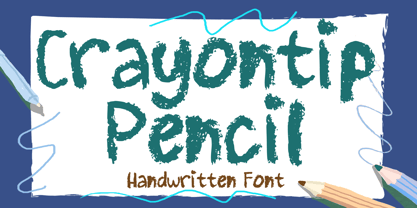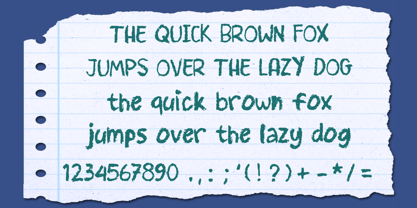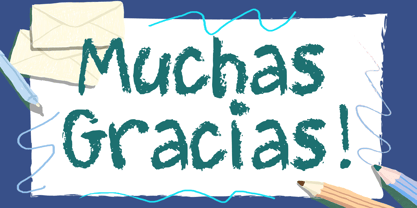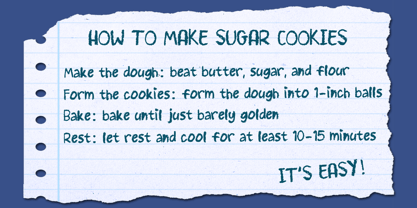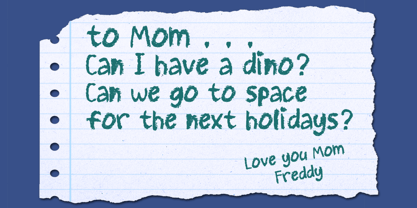
Crayontip Pencil
by Mvmet
The Crayontip Pencil Font Family was designed by Gabriel Valentinus and published by Mvmet. Crayontip Pencil contains 1 styles. More about this family
Introducing Crayontip Pencil, a playful yet versatile font that showcases the whimsical textures of pencil, crayon, and graphite. This font serves as your daily design companion, capable of elevating any project to new heights. It breathes life into a variety of design ventures, from enhancing stickers and t-shirts to creating memorable merchandise and striking logos. Not limited to flamboyant creations, it also excels in adorning magazine and book covers, enlivening comics and cartoon artwork, or adding a personal touch to your everyday typing tasks. With Crayontip Pencil, you can infuse a dash of cool and an extraordinary flair into your designs, ensuring they stand out in any crowd. Ideal for branding, web design, and editorial projects, this font family offers a unique blend of creativity and functionality, making it a must-have for designers seeking to make a lasting impression.
Designers: Gabriel Valentinus
Foundry: Mvmet